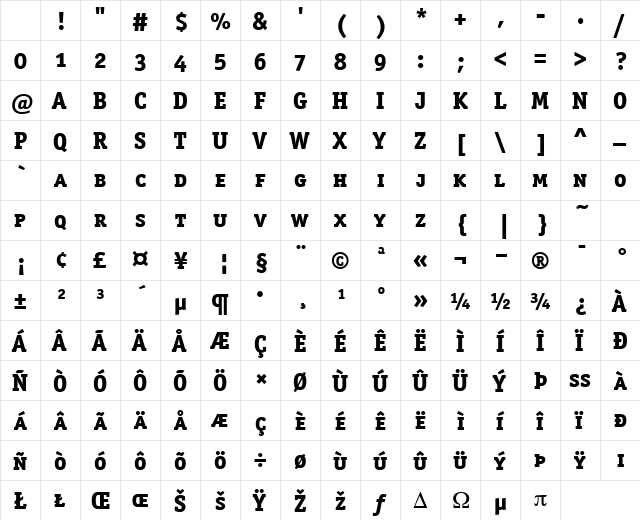
Complete OfficinaSerMdSCITCTT ExtraBold glyph index. Displaying only characters natively supported by OfficinaSerMdSCITCTT ExtraBold font.
OfficinaSerMdSCITCTT is a composed and adaptable typeface that performs quietly and consistently across a wide range of design contexts. Its bold stroke weight gives it real presence on the page.